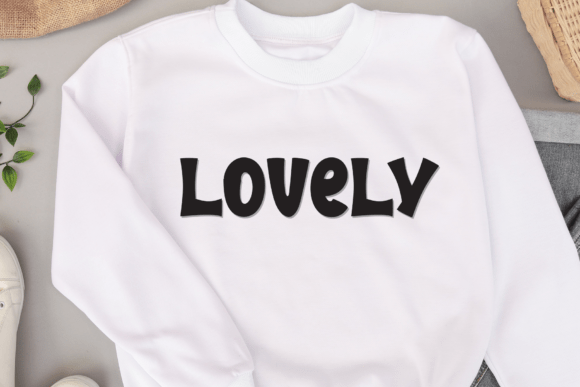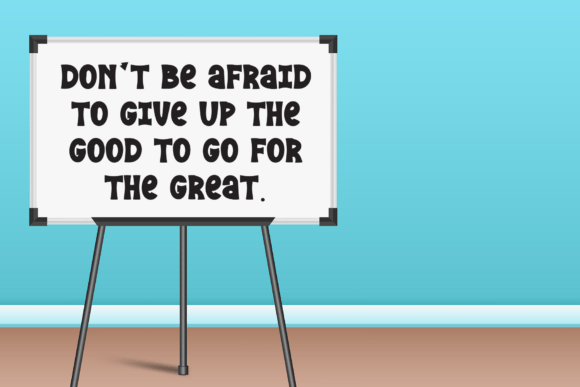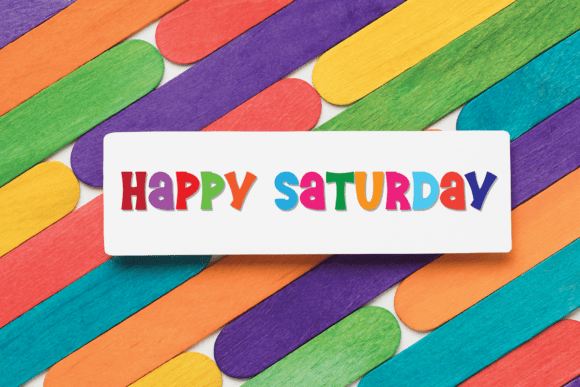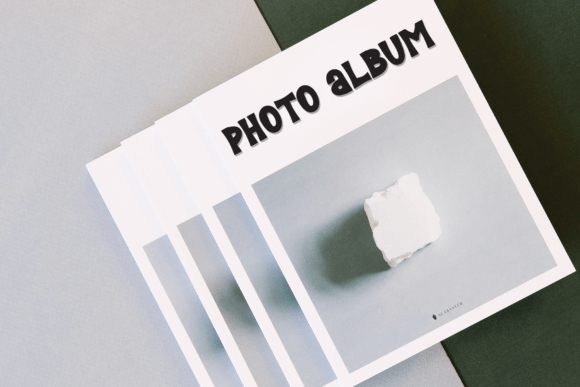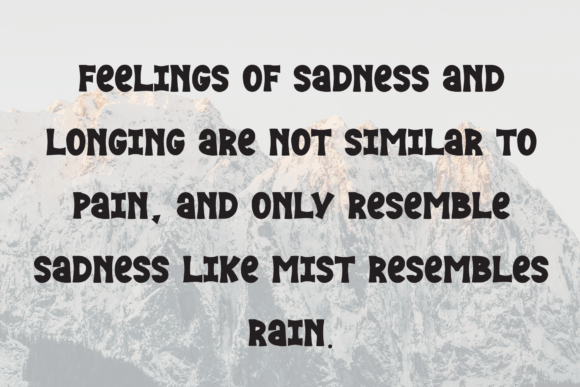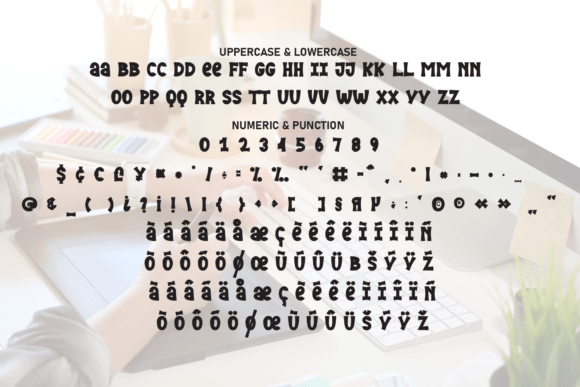
Introducing the Delightful Designer Font: Adding a Touch of Whimsy to Your Designs
Are you tired of using the same old fonts in your designs? Do you want to add a touch of personality and whimsy to your visual creations? Look no further! We’re excited to introduce a charming and approachable handwritten display font that’s sure to bring a smile to your face. This delightful font is perfect for designers and crafters looking to inject an element of fun and playfulness into their work.
A Sweet and Friendly Vibe
This beautiful font exudes a sweet and friendly vibe that’s perfect for a variety of design projects. Whether you’re creating wedding invitations, greeting cards, or any other visual creation, this font is sure to breathe joy into your designs. Its charming and approachable nature makes it an irresistible choice for those looking to add a playful touch to their work.
Personifying Innocence and Whimsicality
This delightful font personifies innocence and whimsicality, making it perfect for designers and crafters who want to create visual creations that are both fun and engaging. Its playful and carefree nature is sure to captivate your audience and leave a lasting impression. Whether you’re designing for a client or working on a personal project, this font is sure to add a touch of magic to your designs.
This versatile font is perfect for a variety of design projects, including:
Why Choose This Font?
So why choose this delightful font for your designs? Here are just a few reasons:
- Unique and eye-catching: This font is sure to stand out from the crowd and grab attention.
- Playful and fun: Its whimsical nature is perfect for adding a touch of personality to your designs.
- Versatile: This font can be used for a variety of design projects, from wedding invitations to social media graphics.
- Easy to read: Despite its playful nature, this font is easy to read and understand.
Tips for Using This Font
Here are a few tips for using this delightful font in your designs:
- Use it as a display font: This font is perfect for headings and titles, so use it to add a touch of personality to your designs.
- Pair it with a simple font: Pair this font with a simple font for body text to create a beautiful contrast.
- Experiment with colors: This font looks great in a variety of colors, so don’t be afraid to experiment and find the perfect hue for your design.
In conclusion, this delightful designer font is a charming and approachable handwritten display font that’s perfect for adding a touch of whimsy to your designs. Its sweet and friendly vibe, playful nature, and versatility make it an irresistible choice for designers and crafters looking to create visual creations that are both fun and engaging. So why not give it a try and see how it can bring joy and personality to your designs?